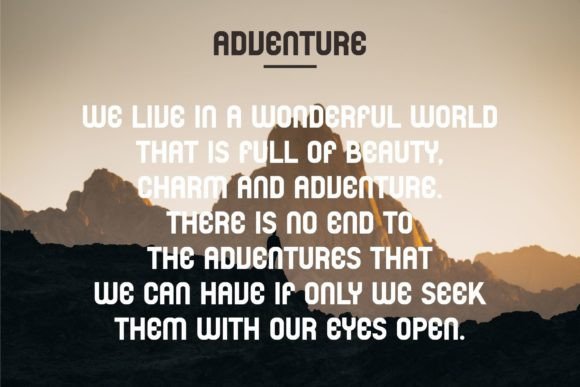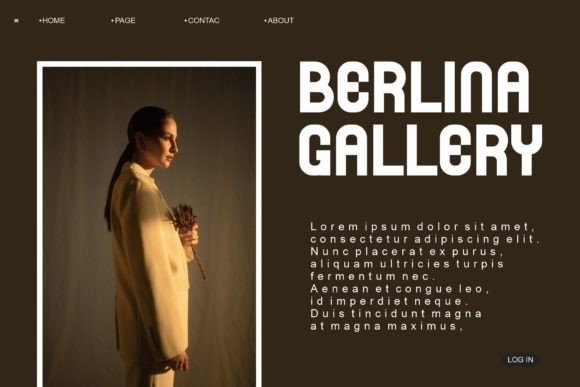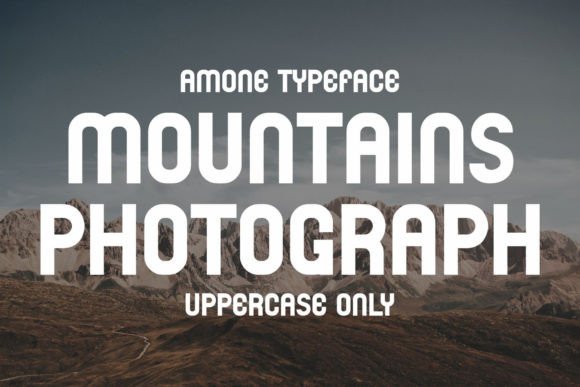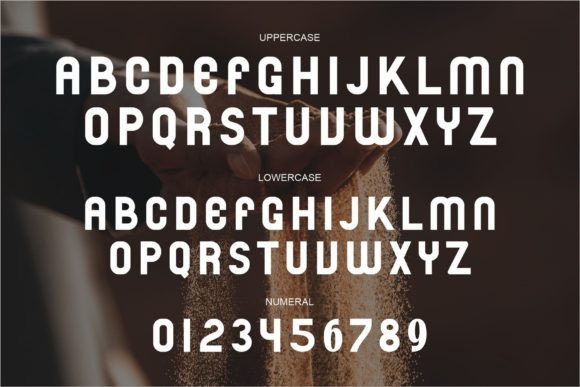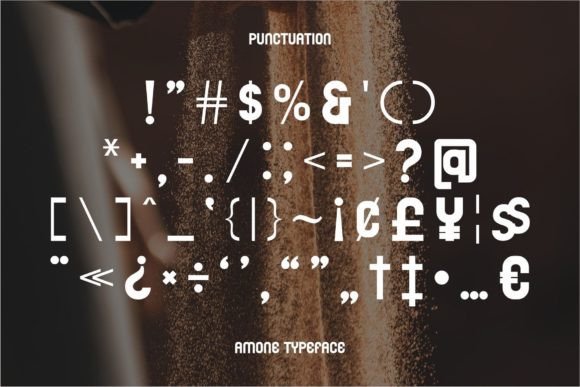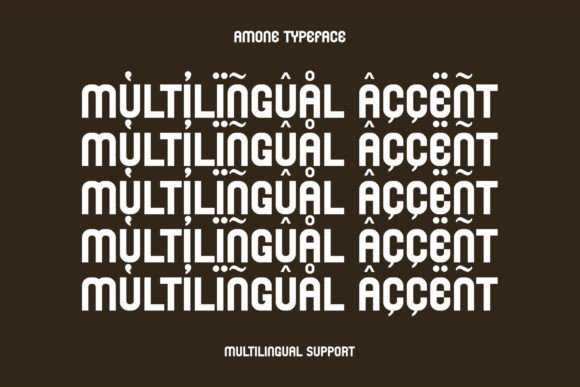
Introducing **AMONE** Modern Display Font: Elevate Your Designs with Minimalist Elegance
In the world of design, typography plays a crucial role in conveying messages, evoking emotions, and creating lasting impressions. For designers and crafters seeking a font that embodies modernity, simplicity, and sophistication, the **AMONE** Modern Display Font is an exceptional choice. Inspired by the famous minimalist logo, **AMONE** is a versatile and elegant font perfect for a wide range of design applications.
The Inspiration Behind **AMONE**
The **AMONE** font draws its inspiration from the minimalist logo design movement, which emphasizes simplicity, clean lines, and a clutter-free aesthetic. This design philosophy has been influential in various creative fields, from branding and advertising to graphic design and typography. By distilling the essence of minimalist logos, **AMONE** offers a fresh and contemporary take on modern display fonts.
Key Features of **AMONE** Modern Display Font
- Clean and Simple Design: **AMONE** boasts a sleek and uncomplicated design, making it perfect for designs that require a touch of elegance and sophistication.
- Versatile: This font is highly versatile and can be used across various design platforms, including templates, brochures, videos, advertising branding, logos, invitations, and more.
- Elegant Crafting: **AMONE** is ideal for crafting beautiful designs, from beauty and cosmetics branding to high-end product design and luxury goods.
- Highly Legible: The font’s clear and concise design ensures excellent legibility, making it suitable for both digital and print applications.
Design Applications for **AMONE**
The **AMONE** Modern Display Font is suitable for a wide range of design applications, including:
- Template Design: Create stunning templates for presentations, reports, and marketing materials.
- Brochure Design: Design eye-catching brochures that showcase your products or services in style.
- Video Production: Use **AMONE** in your video titles, subtitles, and lower thirds for a professional look.
- Branding and Advertising: Establish a strong brand identity with **AMONE**, perfect for logos, taglines, and advertising campaigns.
- Invitation Design: Create elegant invitations for special events, weddings, and corporate gatherings.
- Layout Design: Use **AMONE** to create visually appealing layouts for magazines, newspapers, and digital publications.
Why Choose **AMONE**?
In a world where design trends are constantly evolving, **AMONE** offers a timeless and sophisticated solution for designers and crafters. Here are just a few reasons why **AMONE** stands out:
- Unique and Memorable: **AMONE**’s minimalist design ensures your creations will stand out and be remembered.
- Easy to Pair: This font pairs well with a variety of other fonts, making it easy to mix and match for diverse design projects.
- Multilingual Support: **AMONE** supports multiple languages, making it an excellent choice for global brands and designs.
The **AMONE** Modern Display Font is an exceptional choice for designers and crafters seeking a modern, elegant, and versatile font for their creative projects. With its minimalist design, clean lines, and sophisticated aesthetic, **AMONE** is poised to elevate your designs and leave a lasting impression on your audience. Whether you’re working on branding, advertising, or graphic design, **AMONE** is the perfect tool to add a touch of elegance and refinement to your work.